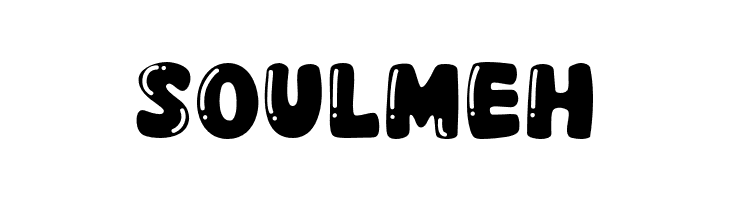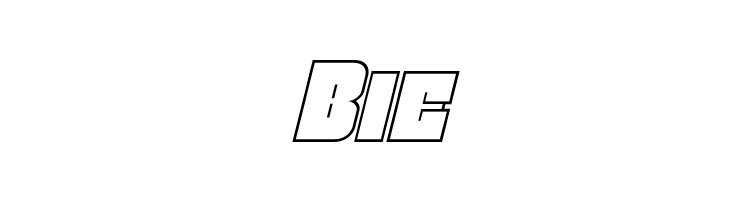
A playful, hand-drawn font with bold, irregular characters.
A bold, angular font with a modern, geometric style.
A playful, handwritten-style font with consistent stroke width and friendly appearance.
A bold, geometric font with a futuristic and industrial design.
A bold, modern font with geometric and rounded elements, offering elegance and versatility.
A playful, hand-drawn font with rounded, bubble-like characters and a whimsical style.